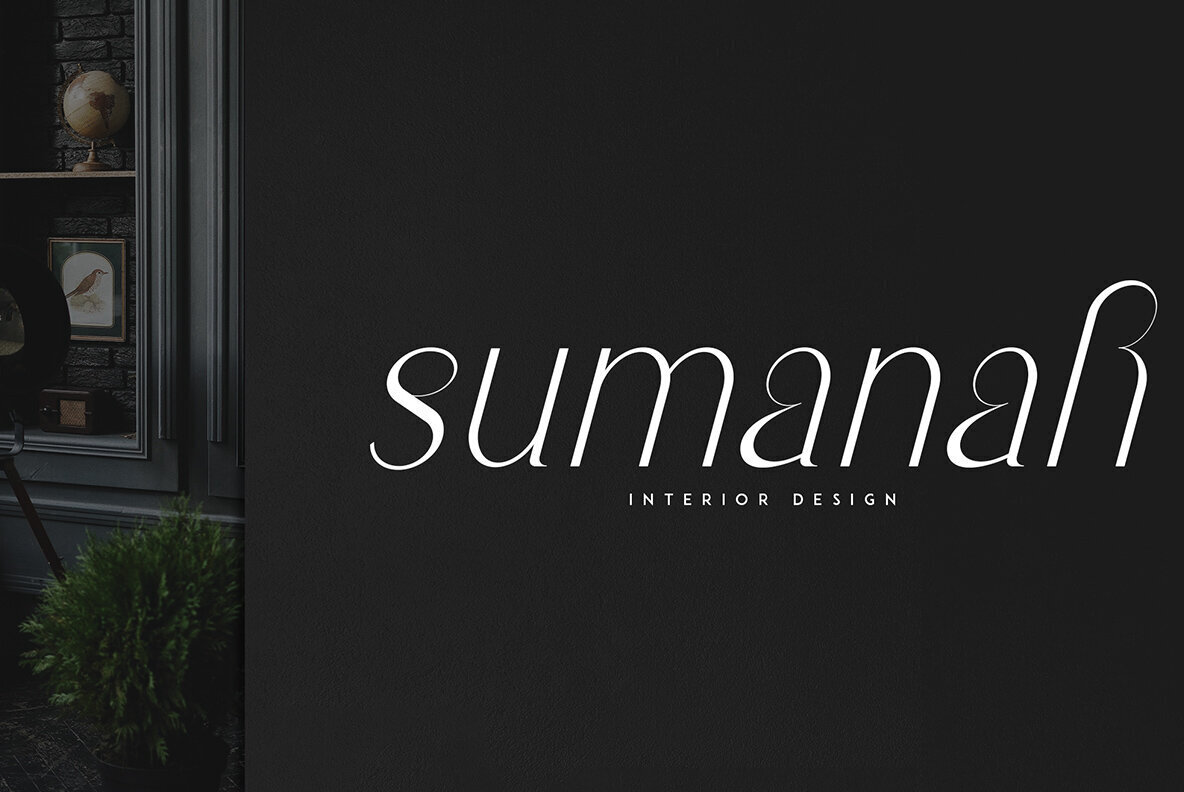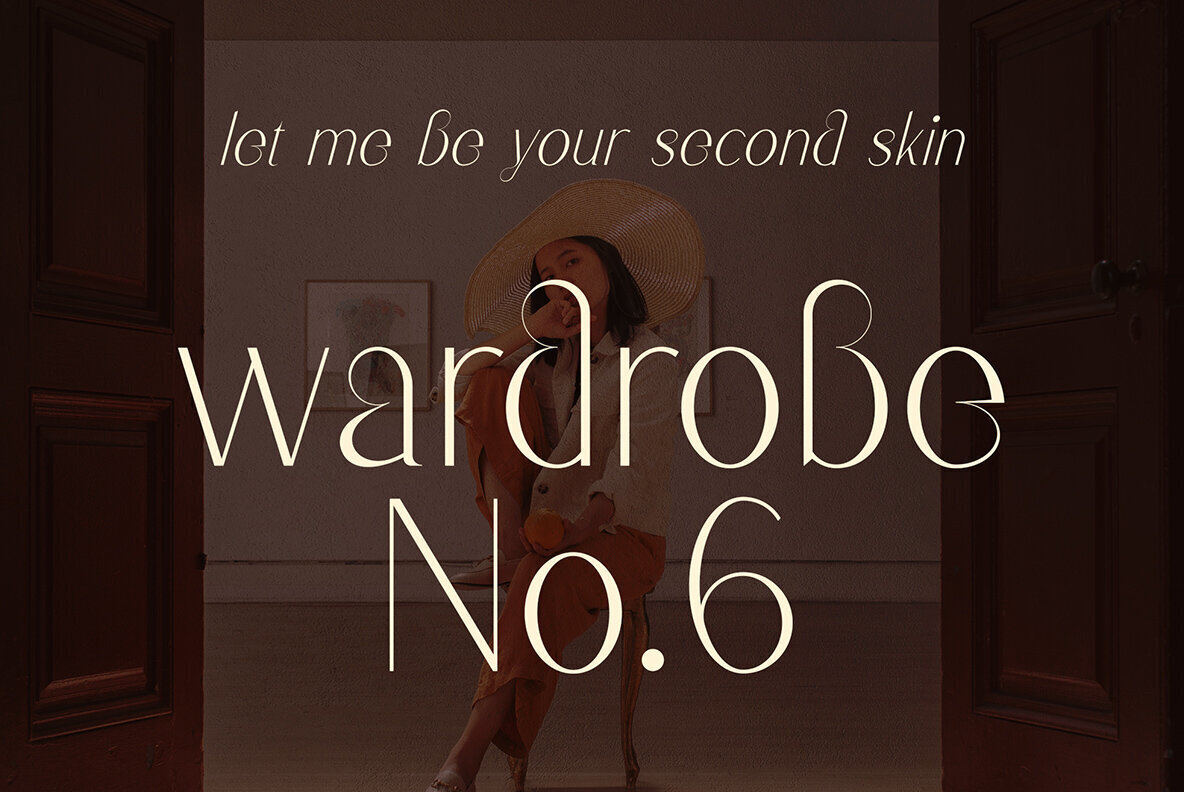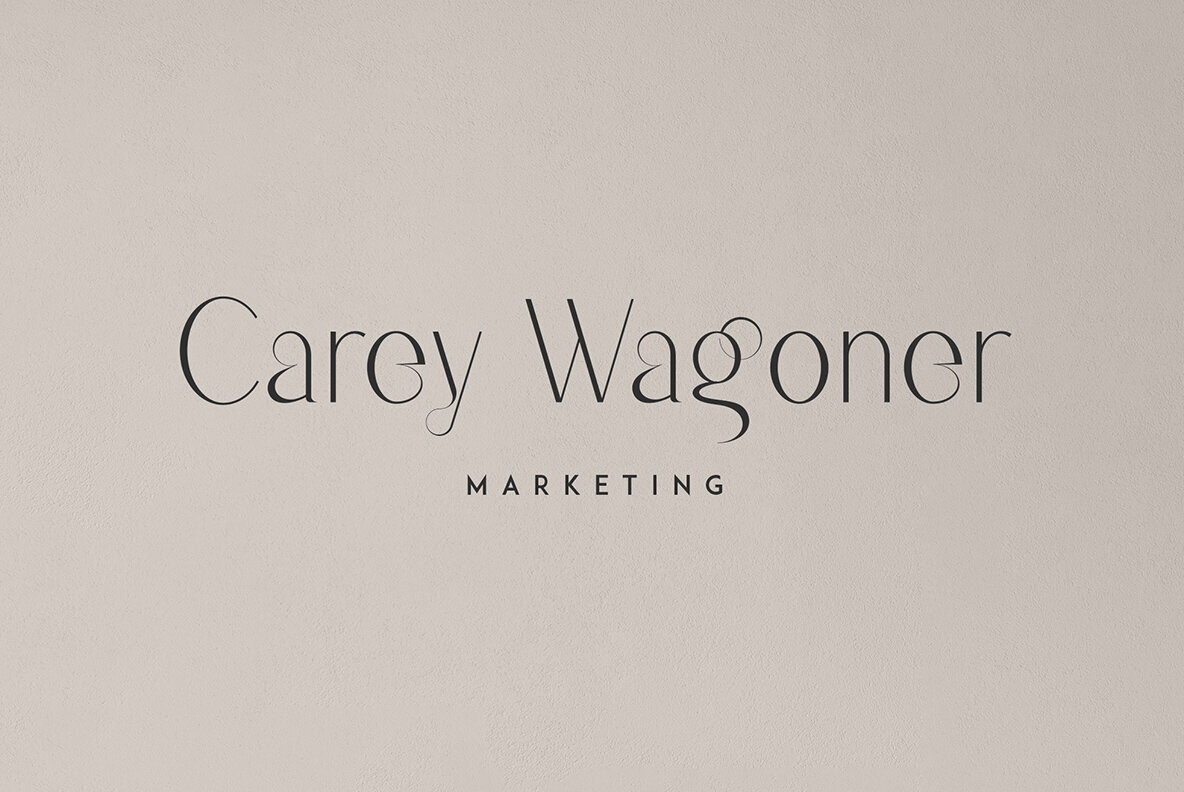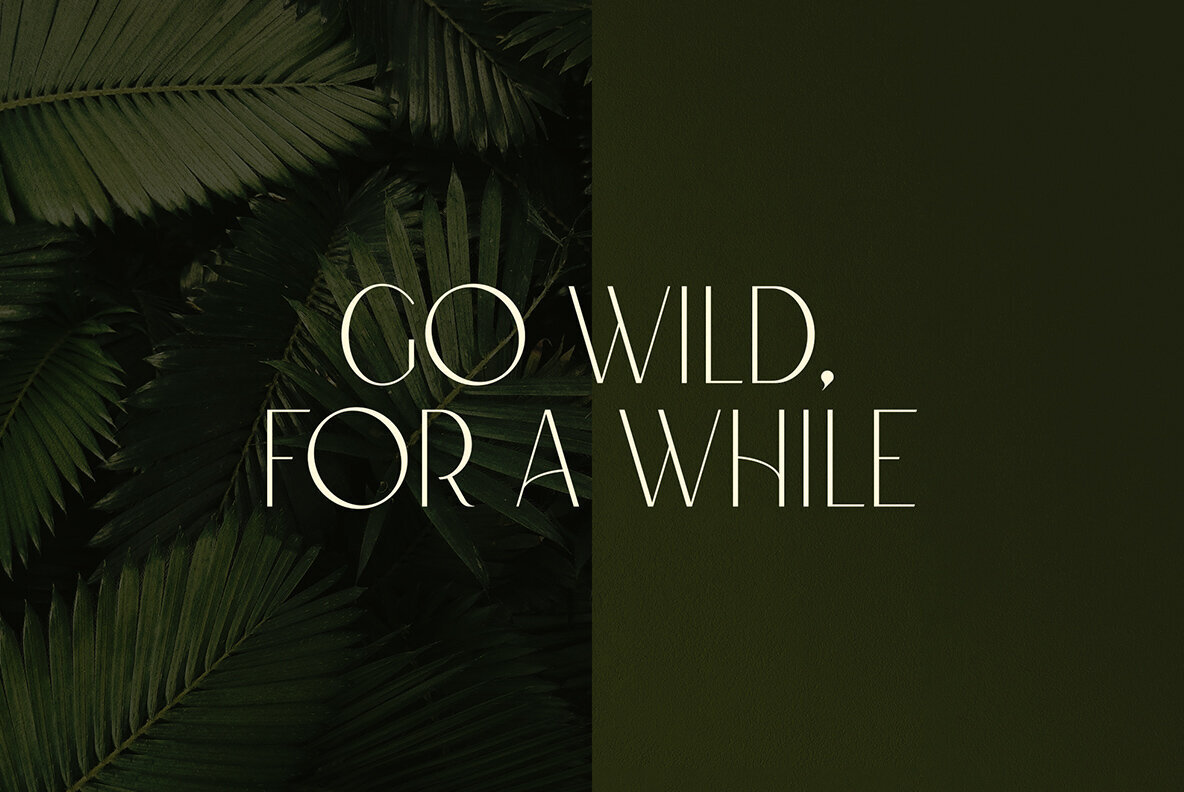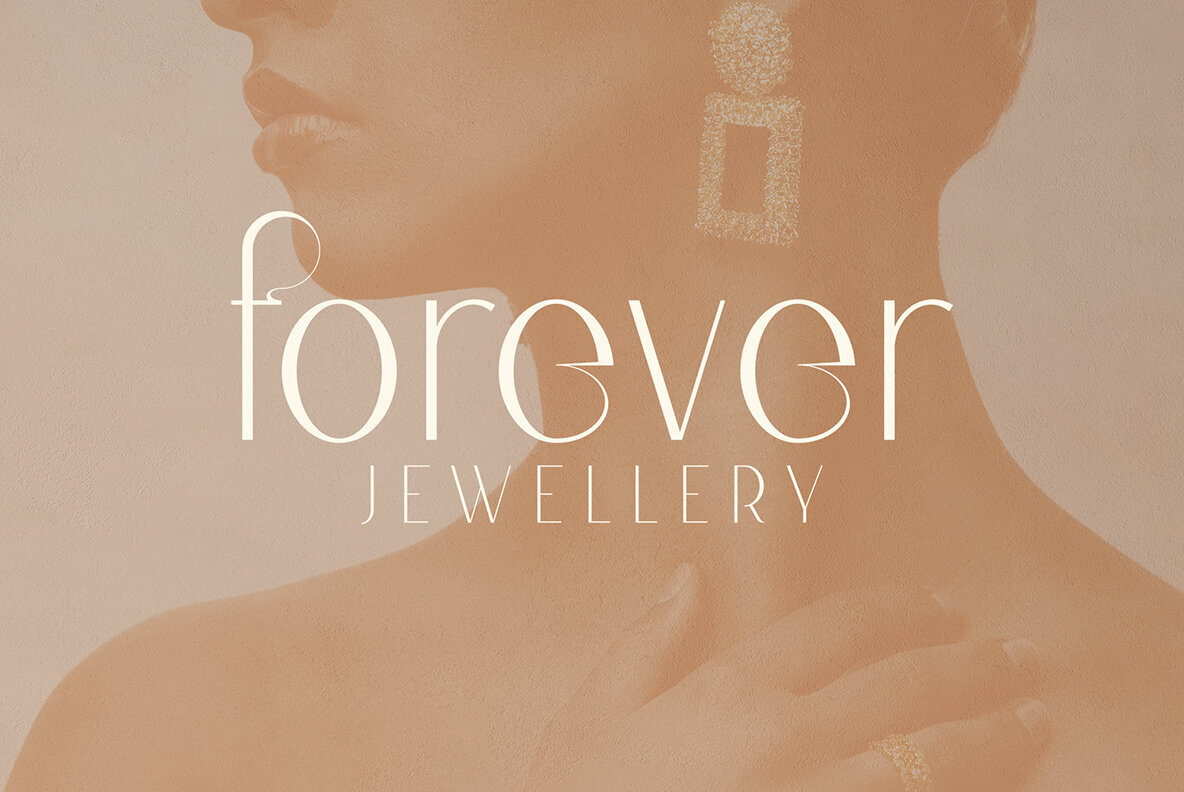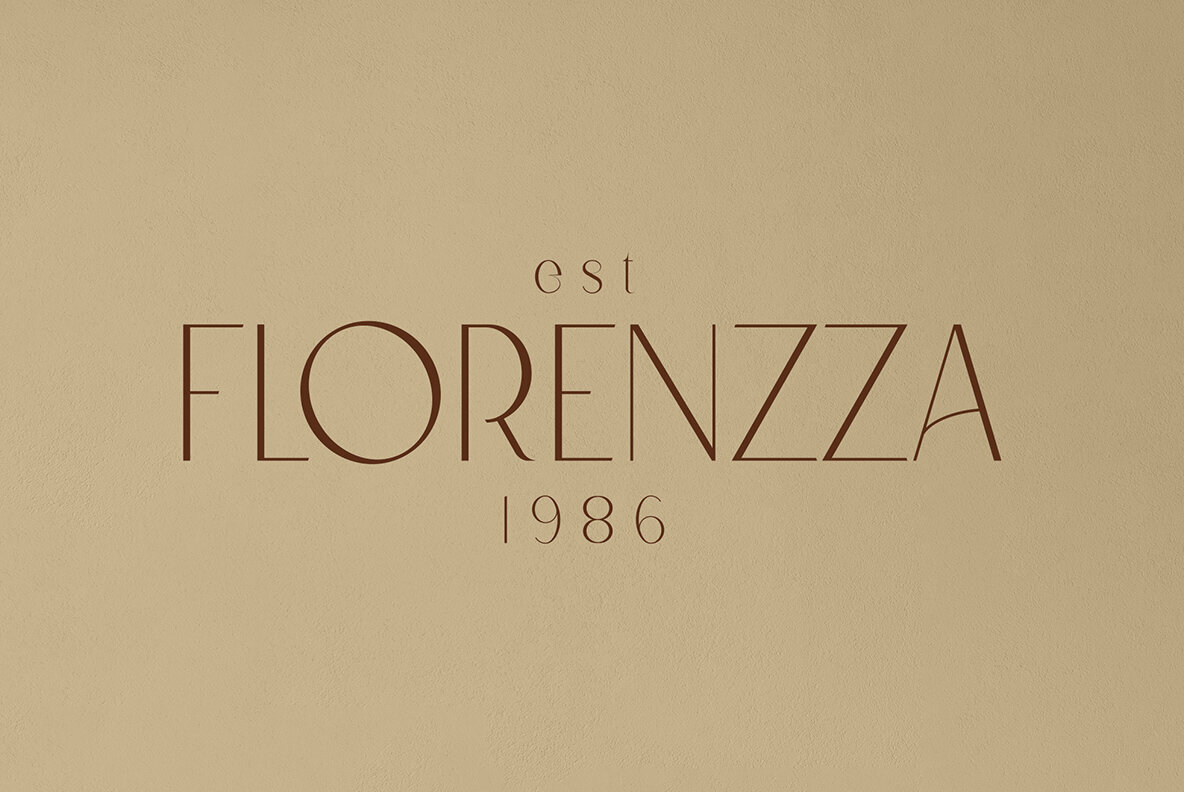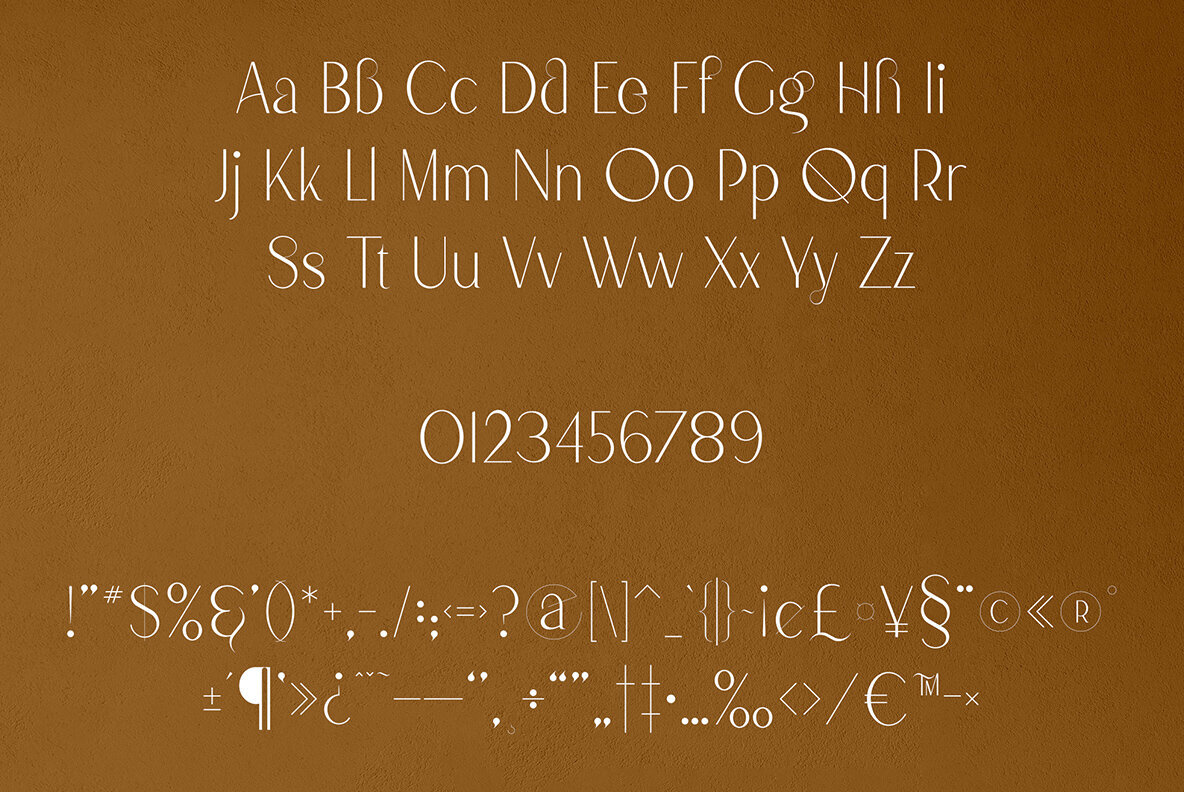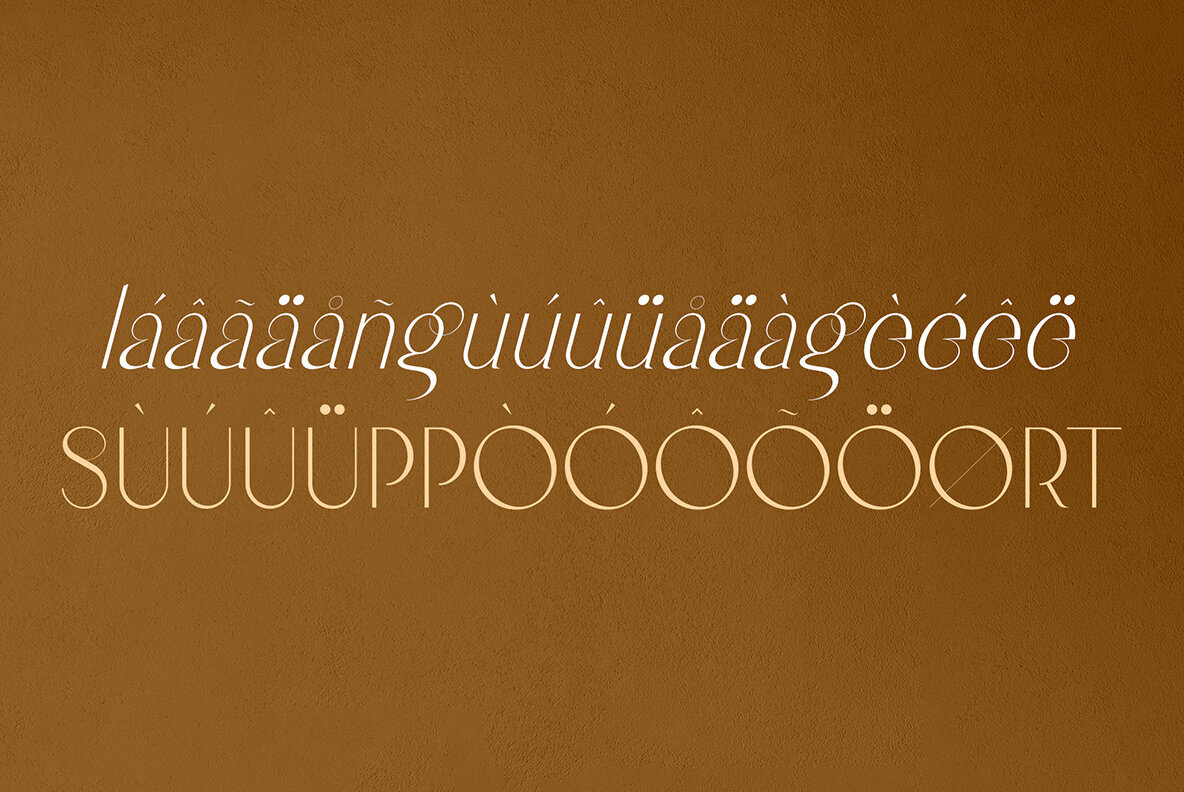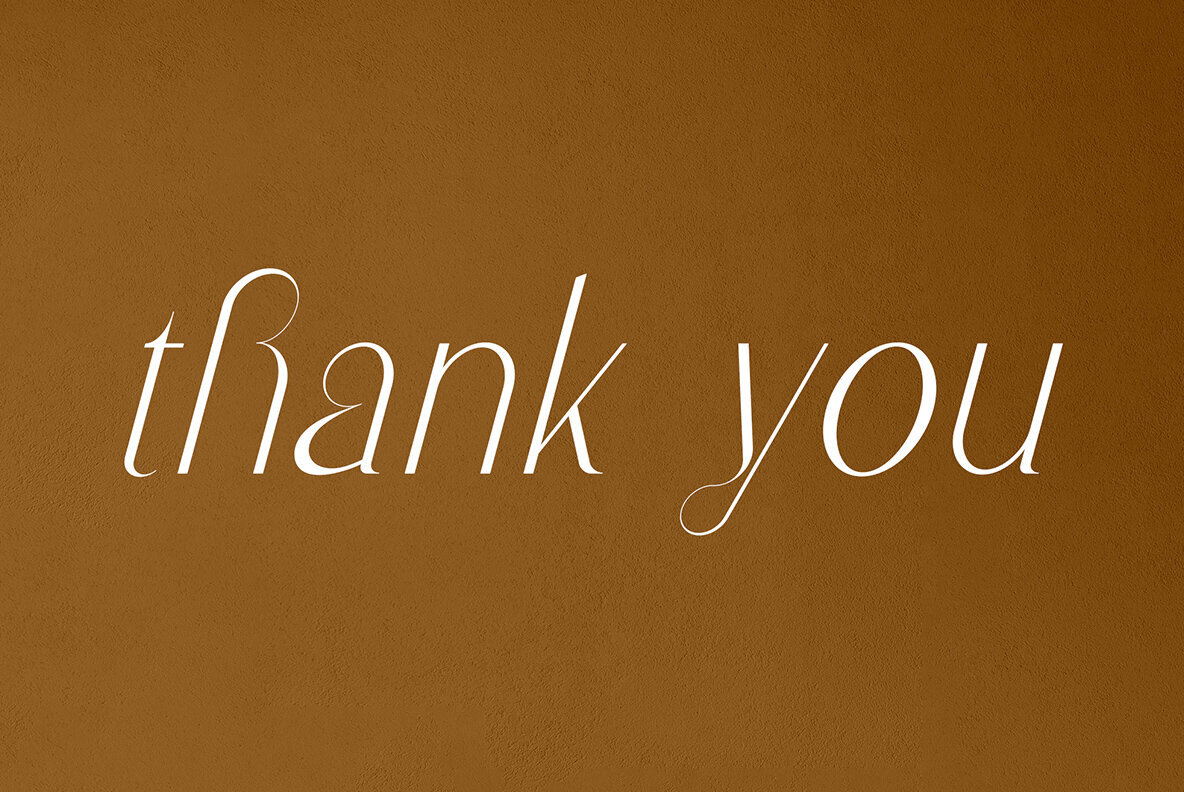
Kvell Font
Kvell Regular
Immerse your designs in elegance with the Kvell typeface. This luxury font is both sophisticated and adaptable, proving its worth across a multitude of applications, from branding to magazine headers. Its tall, refined lines lend a majestic touch to any project, ensuring each letter makes a statement, whether on a grand or intimate scale. Kvell transcends traditional design boundaries, making it an ideal choice for branding projects, stylish homeware design, eye-catching product packaging, and striking magazine headers. Its ability to act as a stylish overlay also enhances imagery, adding a touch of class to any background.Kvell: An Elegant Display Typeface for Versatile Use
Suitable for Any Creative Endeavor